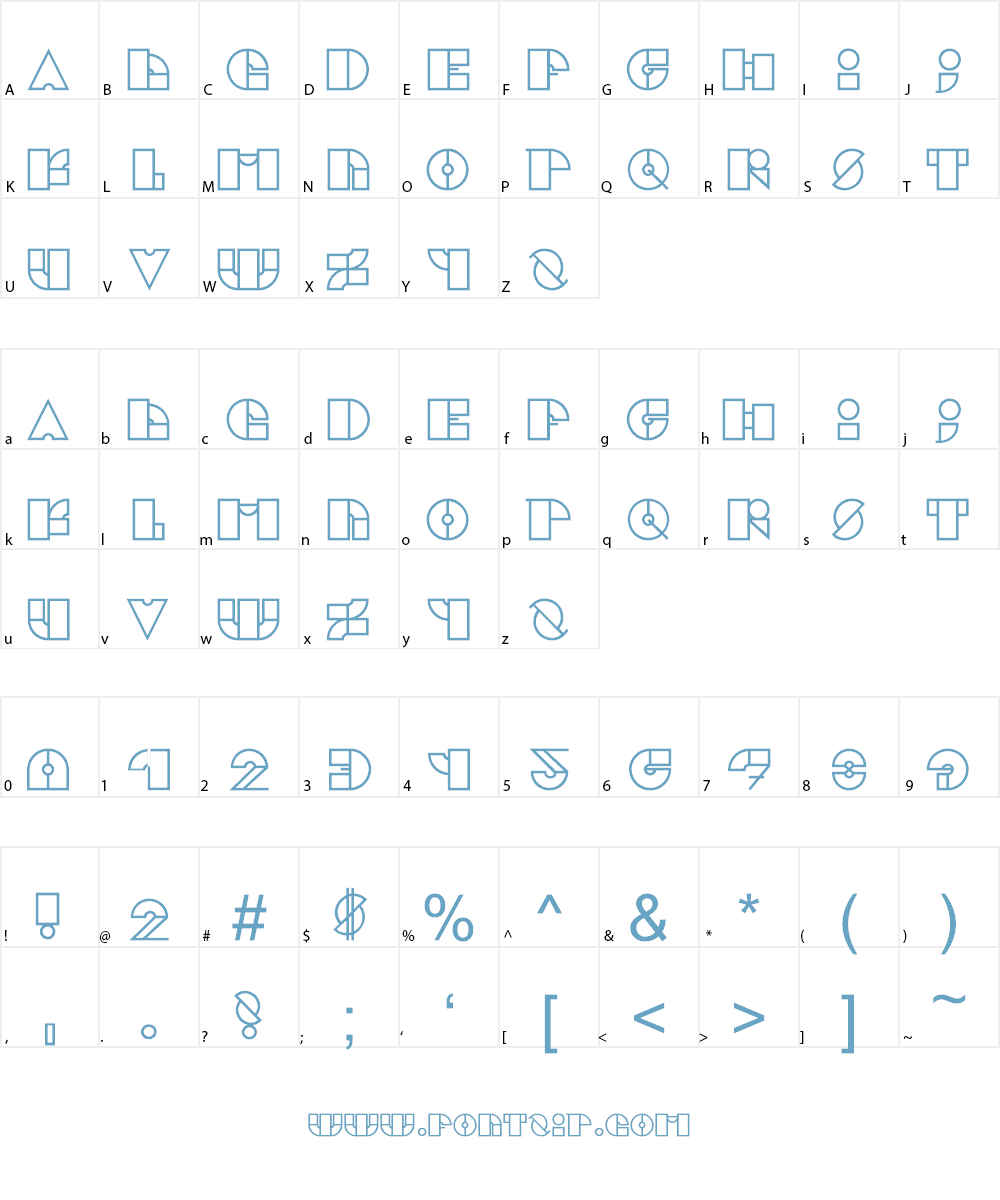
The story behind the name of this font, is pretty obvious really.. Cubik is made out of the basic building blocks to create letters, created with circles, triangles and of course, cubes.
The font has a capital letter set, the digits 0-9, an exclam, peroid, questionmark, comma, and hyphen. Perfect for typographical posters, or other graphic design illustrations!